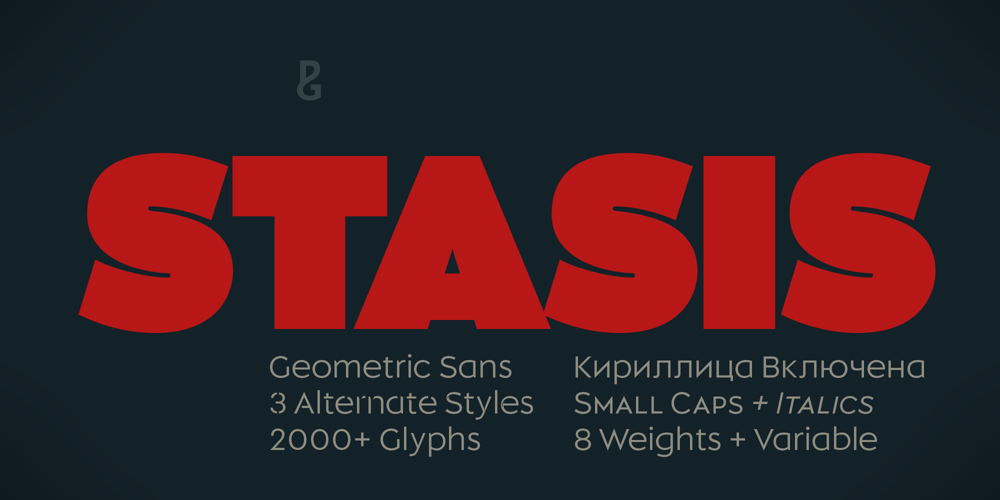
Stasis Font Family was designed by Paulo Goode and published by Paulo Goode. Stasis contains 16 styles and family package options. Stasis is a captivating geometric sans typeface with an ace up its sleeve. This friendly type family has a charm that’s derived from the simplicity of its geometric forms combined with humanistic nuances. The real benefit of adding Stasis to your collection is that you are essentially getting “four fonts in one”.Stasis is a branding designer’s delight. It has been created specifically to handle logotype, headlines and titling. Charismatic and impactful in its standard form, Stasis really excels when you activate its stylistic sets. With three distinctive styles to choose from, you’ll have imposing headlines, masterful logos, and striking book and movie titles developed in no time at all.Stylistic Set 1 – Stencil. This is a fairly straightforward stencil style that has carefully-chosen cuts right through every character.Stylistic Set 2 – Slice. This is another stencil style with the defining feature resembling a slice of pie taken from each glyph.Stylistic Set 3 – Notch. A slight cut into the body creates the illusion of a third dimension. This well-crafted notched style gives this character set a sense of motion.There are 16 fonts in this family, ranging from Light to Ultra in both roman and italic styles. Unicase-style typography is an option too—its small caps harmonise with lowercase forms. Stasis has a character set that covers Latin European and Cyrillic languages. A single variable font (available separately) covers each weight and italic angle with every increment in between to suit whatever style you prefer – VIEW THE VARIABLE VERSION HERE.Key features:8 WeightsRoman & Italic3 Alternate StylesSmall CapsLatin EuropeanCyrillicOld Style FiguresUnicase-style Options2000+ GlyphsAvailable as One Variable FontPlease view hi-res examples and download a sample PDF at paulogoode.com/stasis